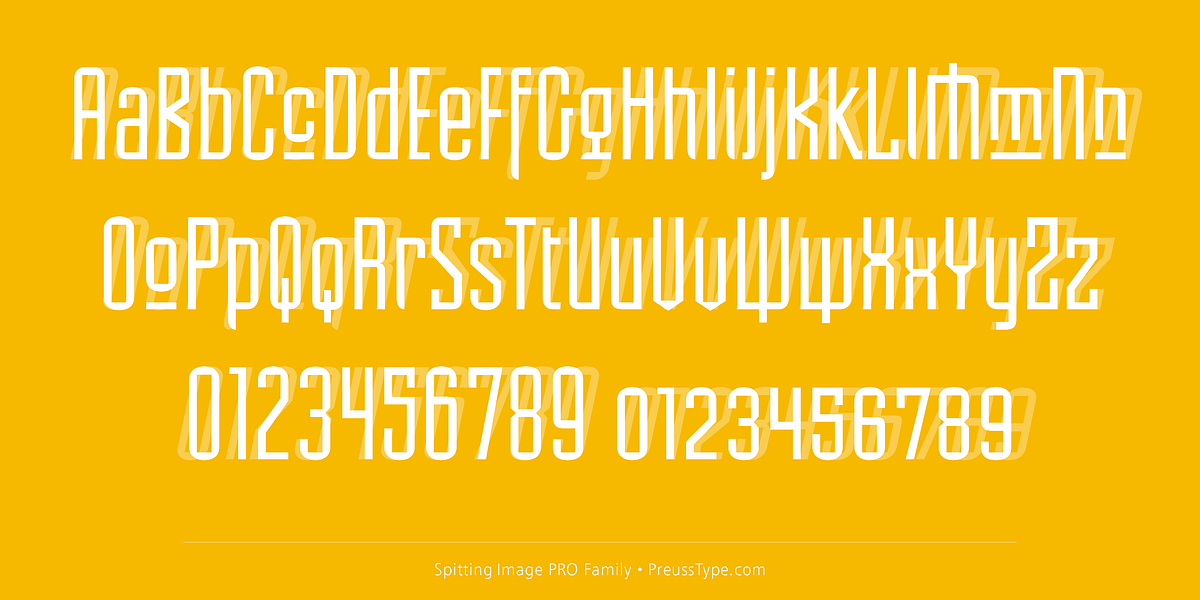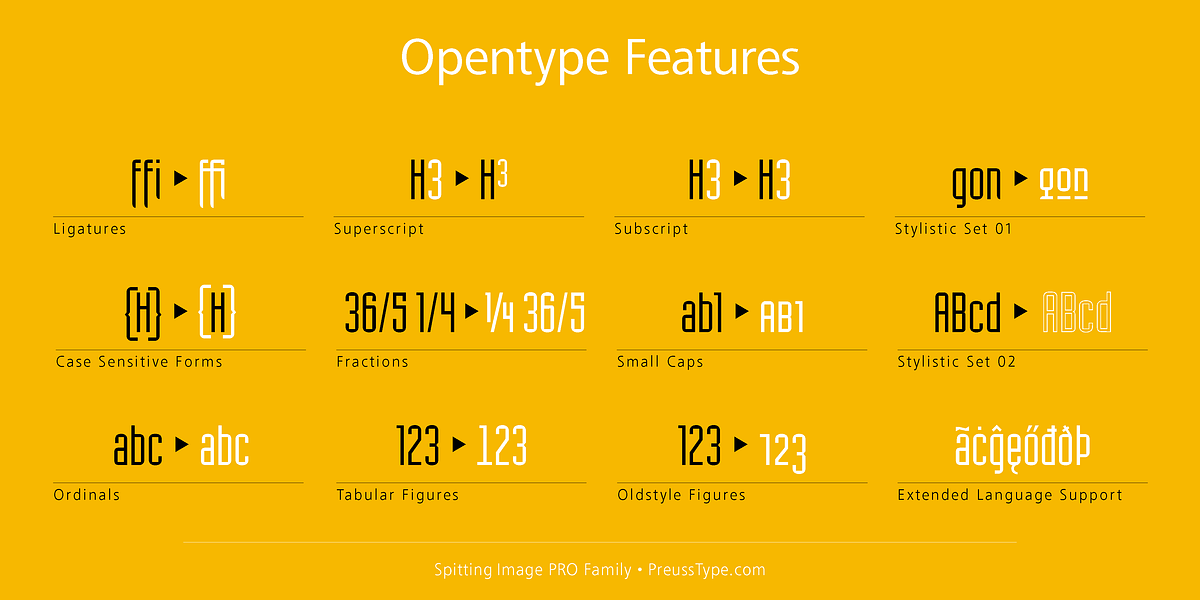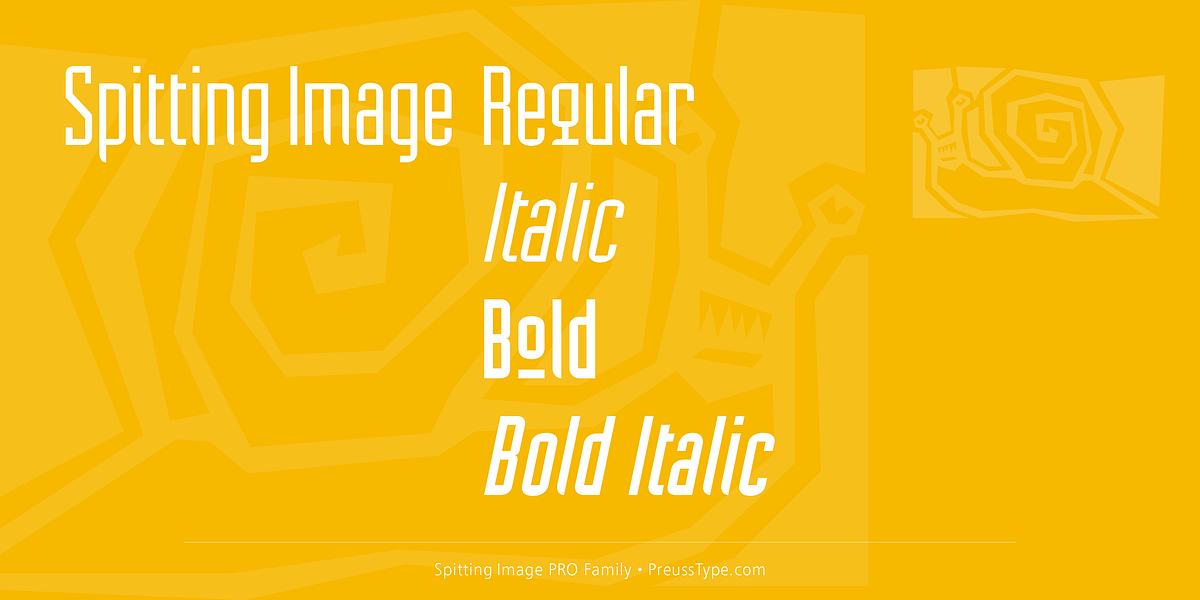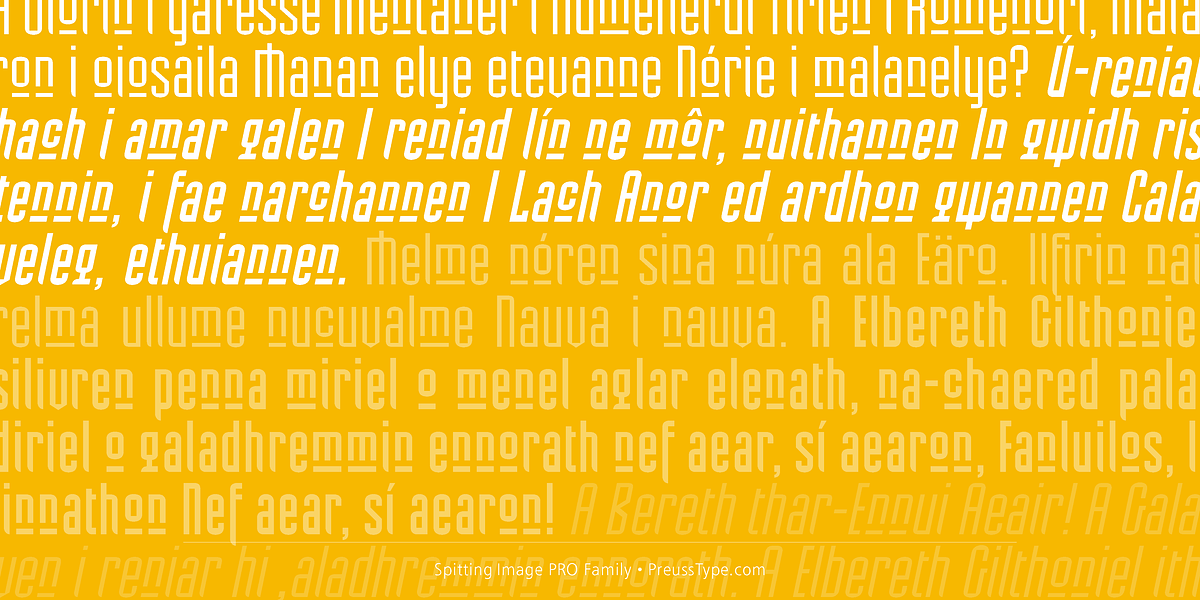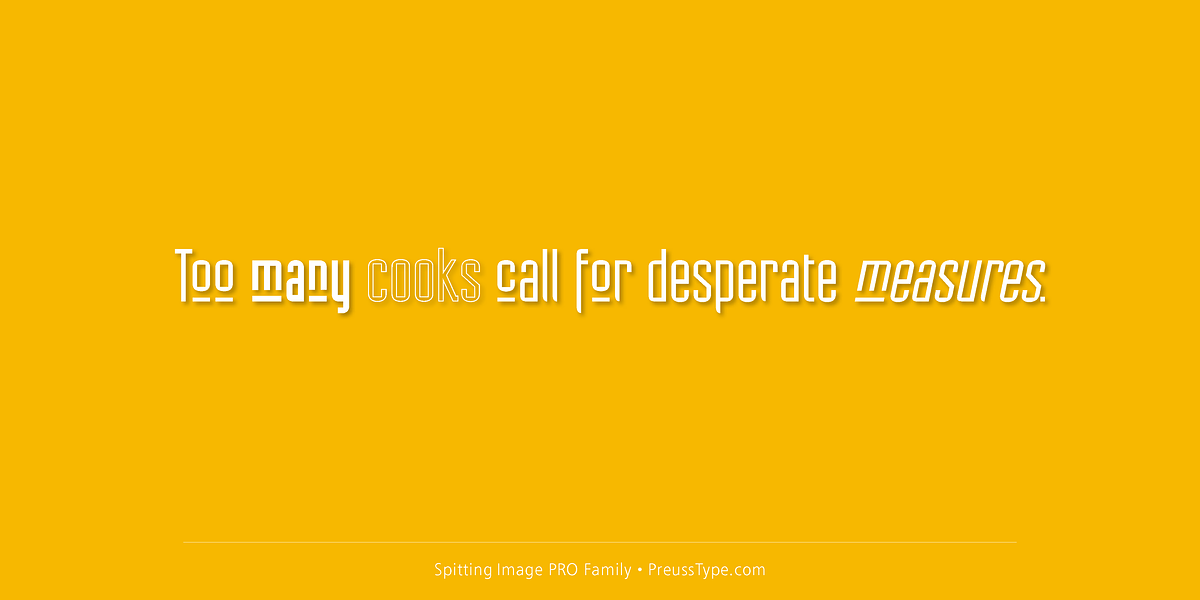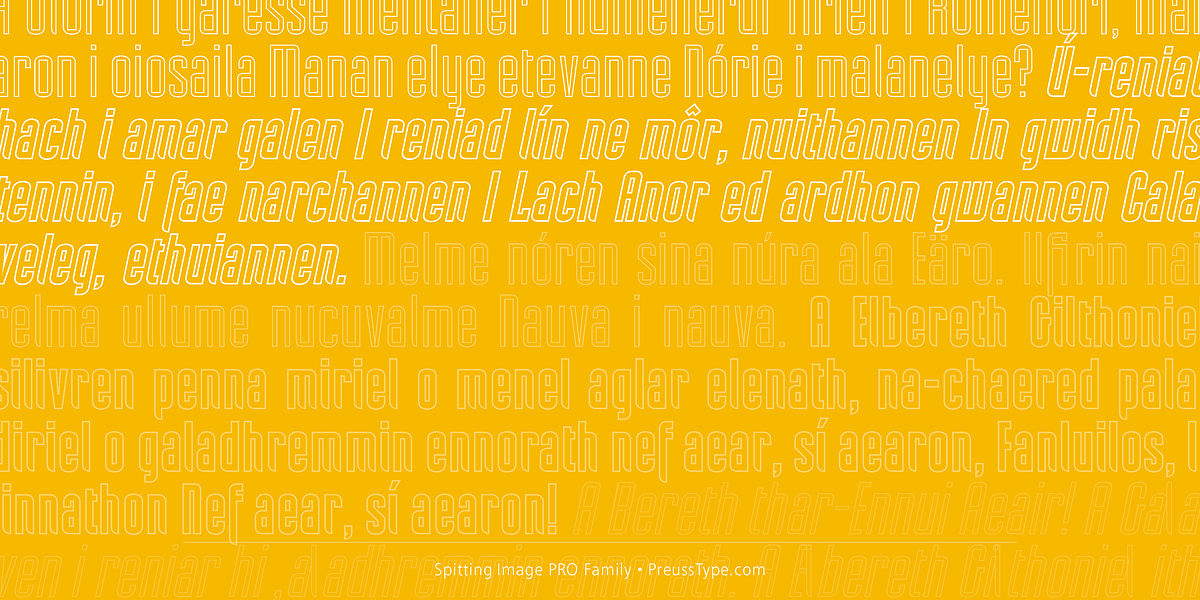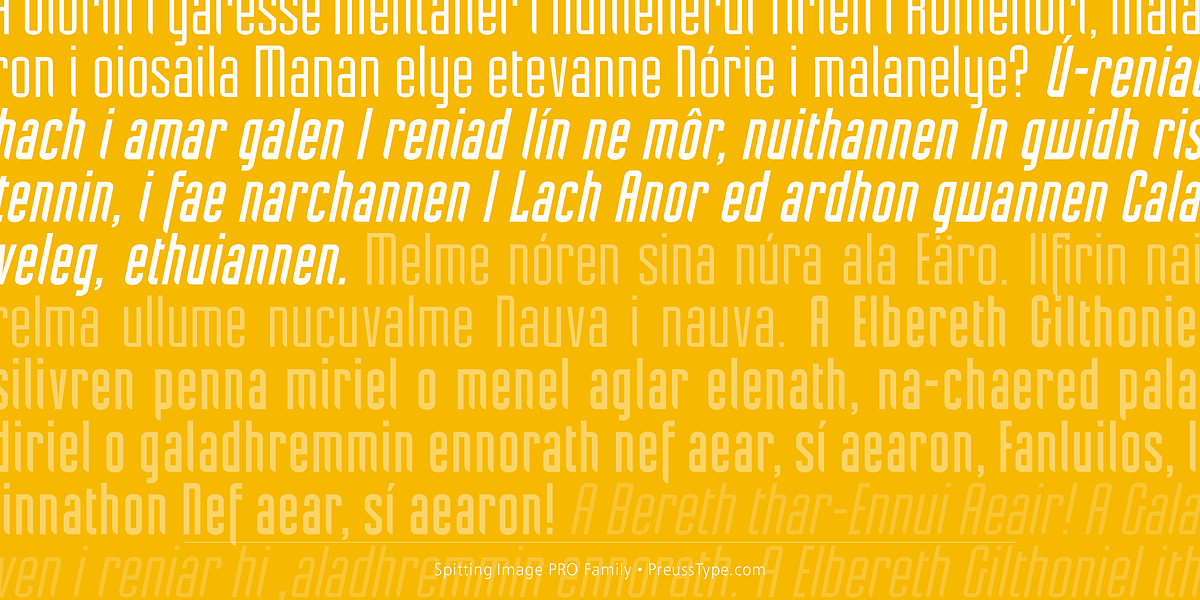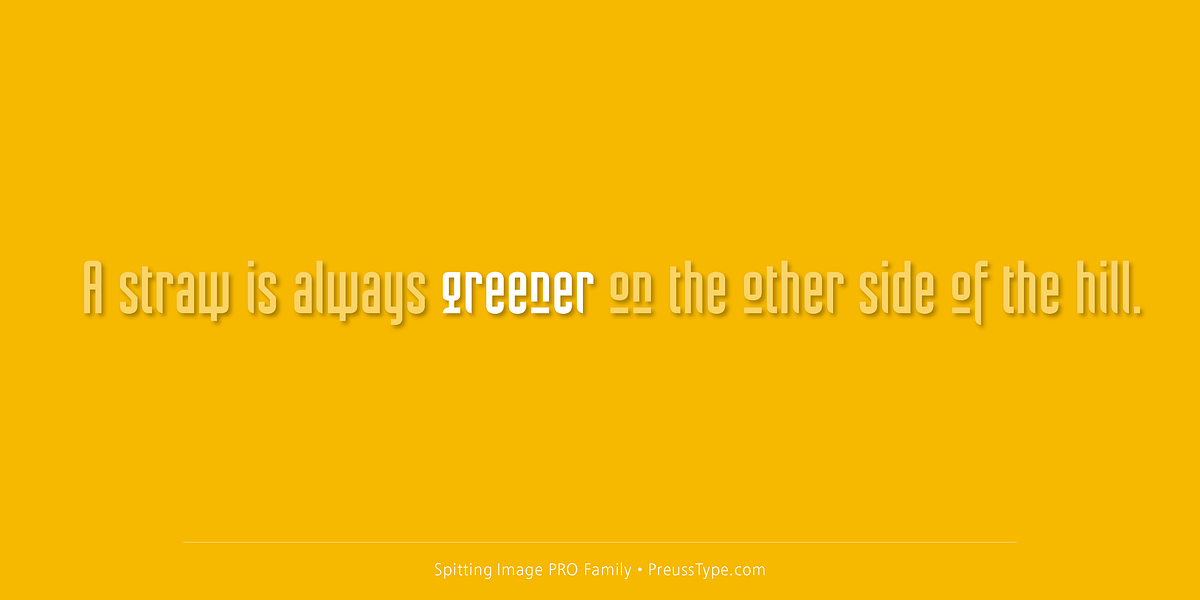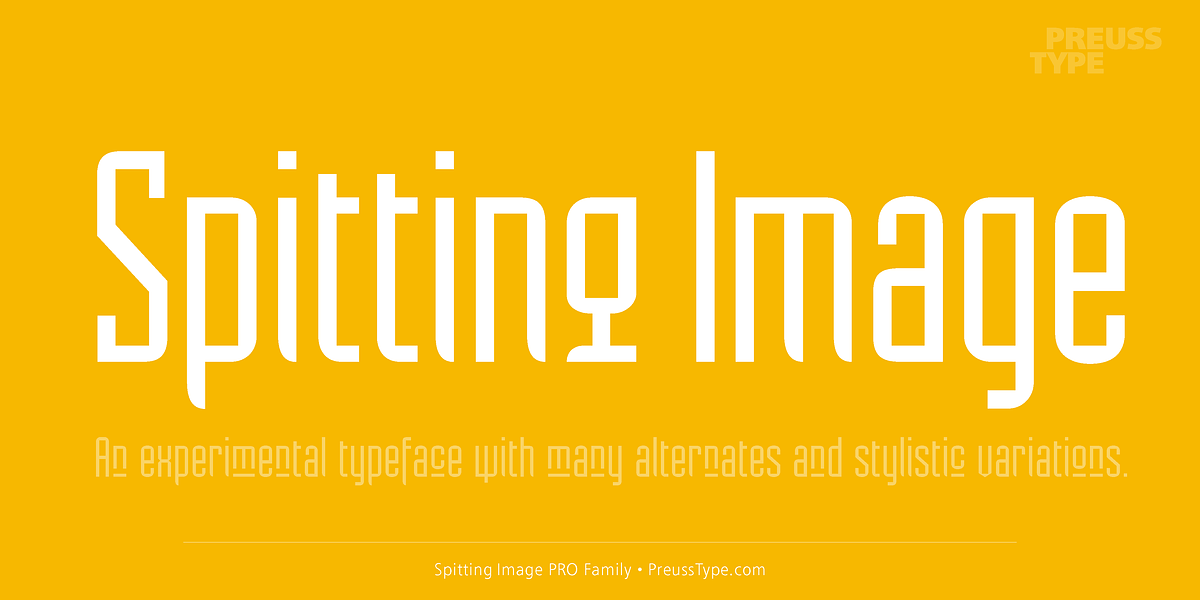
Spitting Image PRO
Spitting Image is a geometric sans serif font inspired by the Bauhaus and Russian Constructivists. It's characterized by its precise, mechanical structure and offers alternate character options for a variety of looks. Suitable for display uses like headlines and logotypes, it can also be used for short blocks of text.